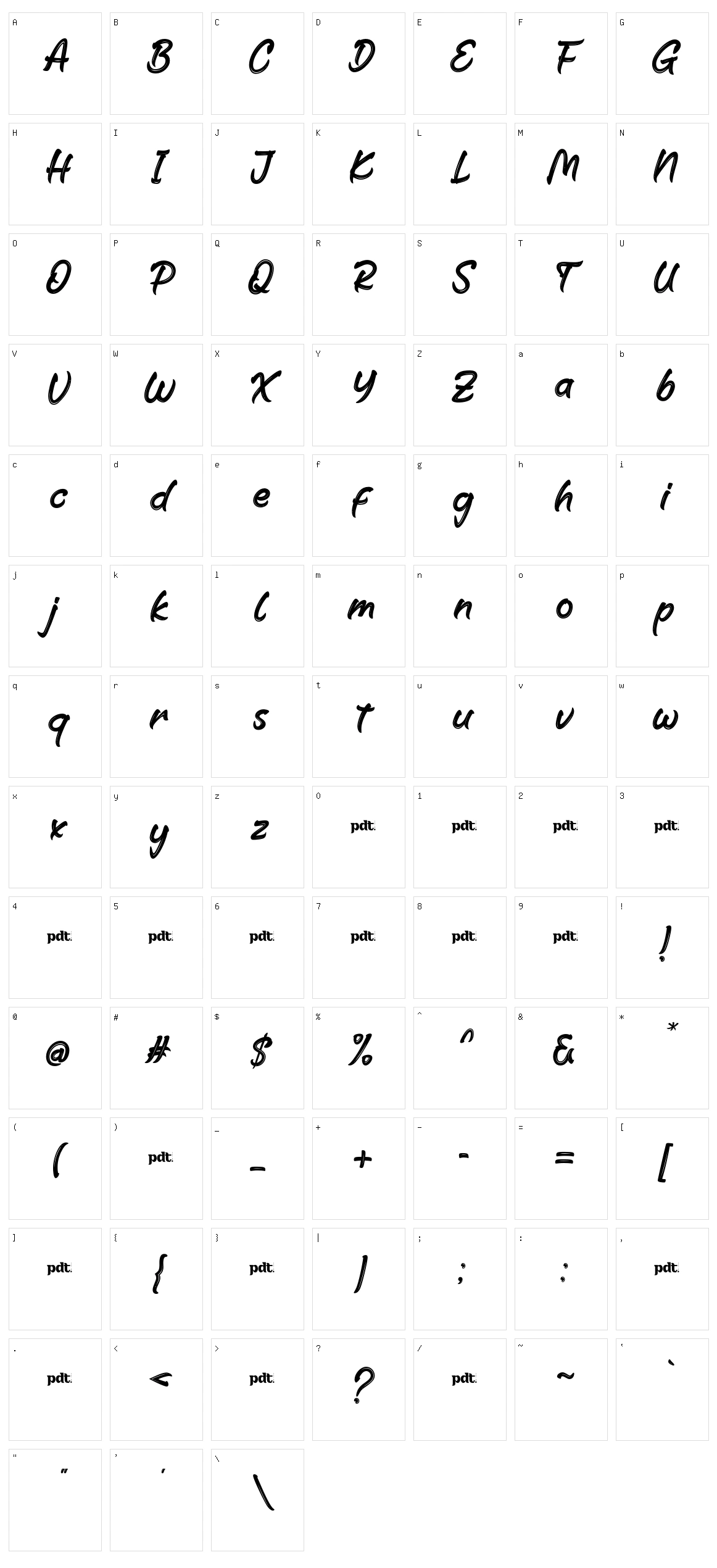
The free font Reborn is carefully designed by productype, showcasing a thoughtful balance of creativity and usability and falls under the Script font style. When you download the ZIP file, it contains only 152.21 KB of font files, making it lightweight and quick to download. Please review the license details below to understand permitted usage and distribution rights. If license information is not available, we recommend using this font for personal projects only or contacting the author directly for commercial usage permissions.